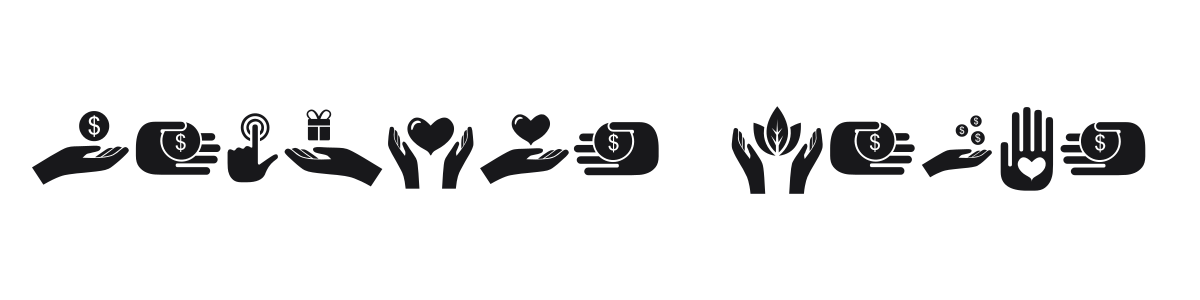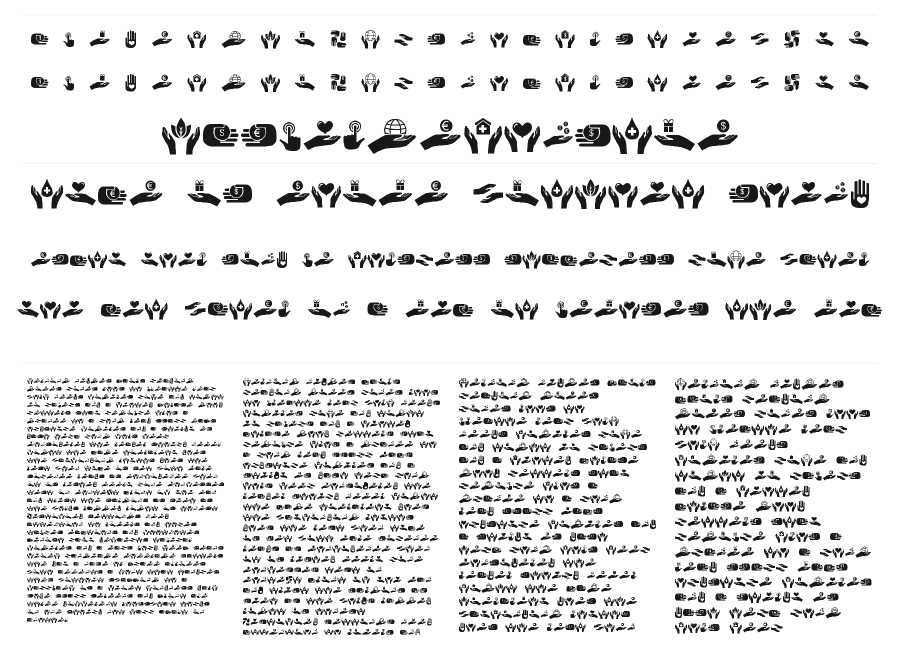
Various Hands
Various Hands is a dingbat font featuring silhouette illustrations of hands paired with symbols representing money, healthcare, charity, and community. Each glyph is drawn with a consistent bold, flat aesthetic that works cleanly at display sizes. A practical set for anyone building infographics, presentations, or communications around themes of giving and care.